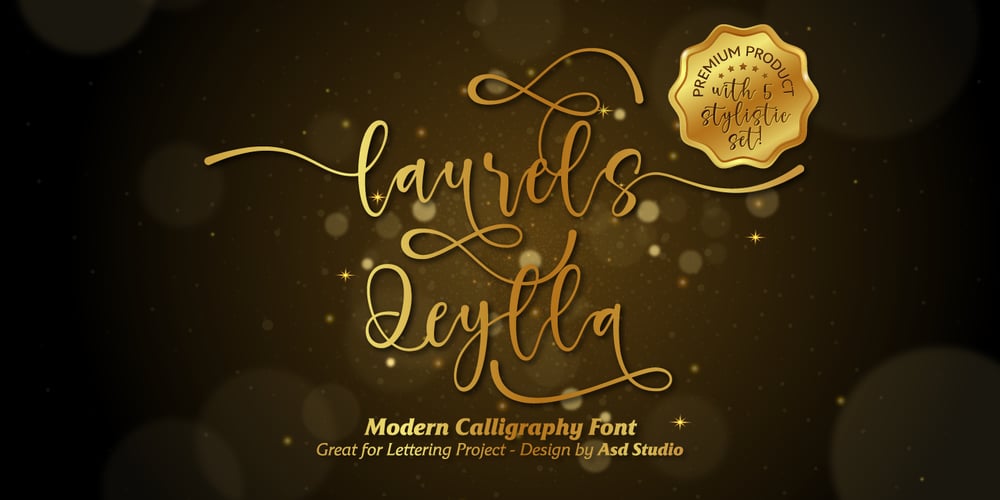
Laurels Qeylla Font Family was designed by Ghazi and published by Asd Studio. Laurels Qeylla contains 1 styles and family package options. Laurels Qeylla is a script font created with love, sincerity, and patience. can be used to make invitation writing, lettering, and all graphic design needs. This font is equipped with 5 stylistic sets and several alternative letters that will make your design look more attractive and beautiful.Thank you if you are interested in purchase and using my font.